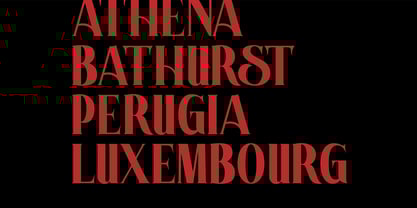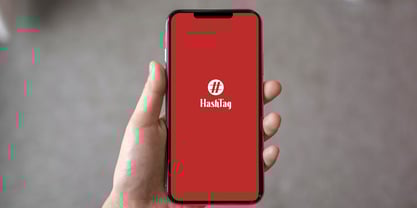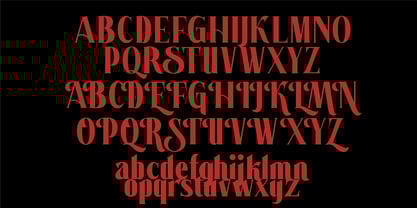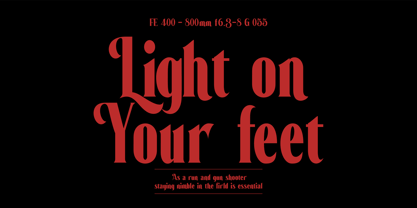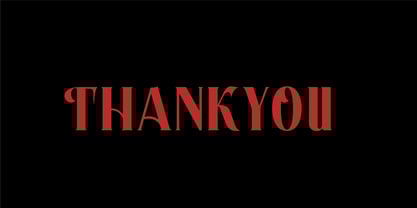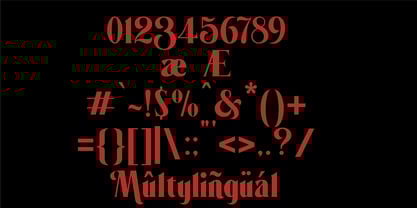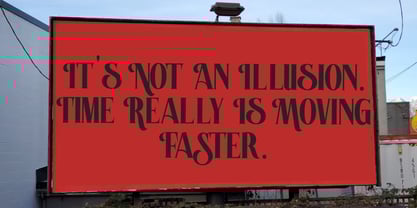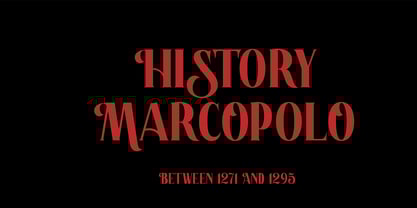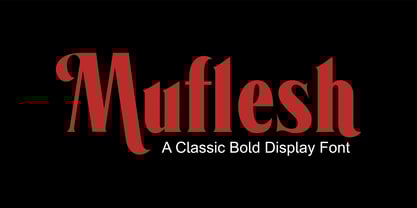
Muflesh
by Zamjump
The Muflesh Font Family was designed by Zamjump, Ahmad Zamzami and published by Zamjump. Muflesh contains 1 styles. More about this family
Muflesh is a bold classic display typeface that exudes strength and character through its thick, confident letterforms. Inspired by the timeless elegance of 1980s typography, it carries a distinct retro charm while remaining versatile for modern design needs. Its beauty is enhanced with alternate uppercase characters, offering creative freedom to bring a unique flair to every project. Perfectly suited for branding, magazine covers, logos, and more, Muflesh delivers a striking visual impact that leaves a lasting impression.